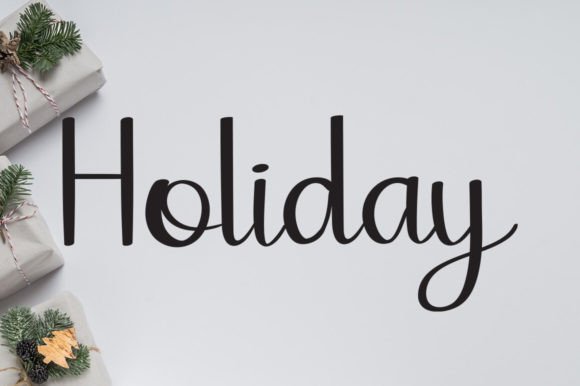
Introducing Christmas Font: A Sweet and Delicate Handwritten Font for Your Design Needs
Are you looking for a font that exudes romance and joy? Look no further than Christmas Font, a sweet and delicate handwritten font that’s perfect for adding a touch of whimsy to your designs. In this article, we’ll take a closer look at Christmas Font, its features, and how you can use it to elevate your design projects.
What is Christmas Font?
Christmas Font is a beautiful, handwritten font that’s designed to bring a sense of joy and romance to your designs. With its dainty and delicate strokes, this font is perfect for creating wedding invitations, cards, and other designs that require a touch of elegance. Whether you’re a designer, crafter, or DIY enthusiast, Christmas Font is an excellent addition to your font collection.
Key Features of Christmas Font
- Handwritten style: Christmas Font has a beautiful, handwritten style that’s perfect for creating personal and romantic designs.
- Dainty and delicate: The font’s dainty and delicate strokes make it ideal for designs that require a touch of elegance and sophistication.
- Joyful and whimsical: Christmas Font has a joyful and whimsical feel that’s perfect for creating designs that are fun and playful.
- Versatile: This font can be used for a wide range of design projects, from wedding invitations and cards to craft projects and DIY designs.
How to Use Christmas Font in Your Designs
Christmas Font is an incredibly versatile font that can be used in a wide range of design projects. Here are some ideas to get you started:
- Wedding invitations: Use Christmas Font to create beautiful, romantic wedding invitations that will set the tone for the big day.
- Cards and stationery: This font is perfect for creating cards, stationery, and other paper crafts that require a touch of elegance and sophistication.
- Craft projects: Use Christmas Font to add a personal touch to your craft projects, such as scrapbooking, journaling, and DIY decor.
- Digital designs: This font can also be used in digital designs, such as social media graphics, blog posts, and website headers.
Christmas Font is a beautiful, sweet, and delicate handwritten font that’s perfect for adding a touch of romance and joy to your designs. With its dainty and delicate strokes, this font is ideal for creating wedding invitations, cards, and other designs that require a touch of elegance and sophistication. Whether you’re a designer, crafter, or DIY enthusiast, Christmas Font is an excellent addition to your font collection.